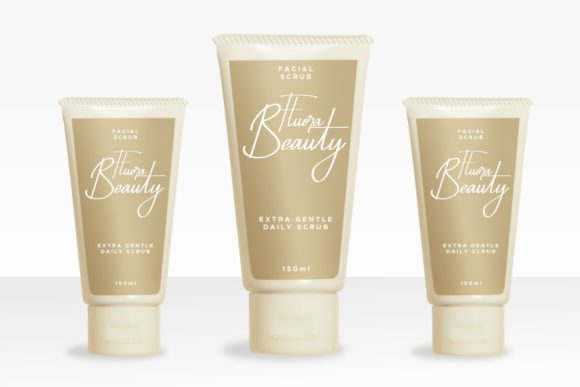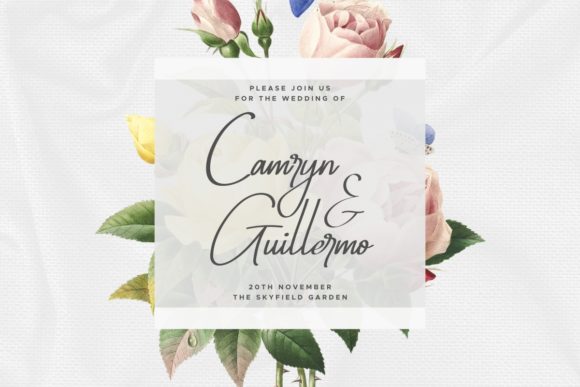
About Hamstring Font
Hamstring is a stylish and delicate script font. It has a clean, thin and smooth vibe and it will be a hit for any design that you want to add it to. This font is PUA encoded which means you can access all of the glyphs and swashes with ease!